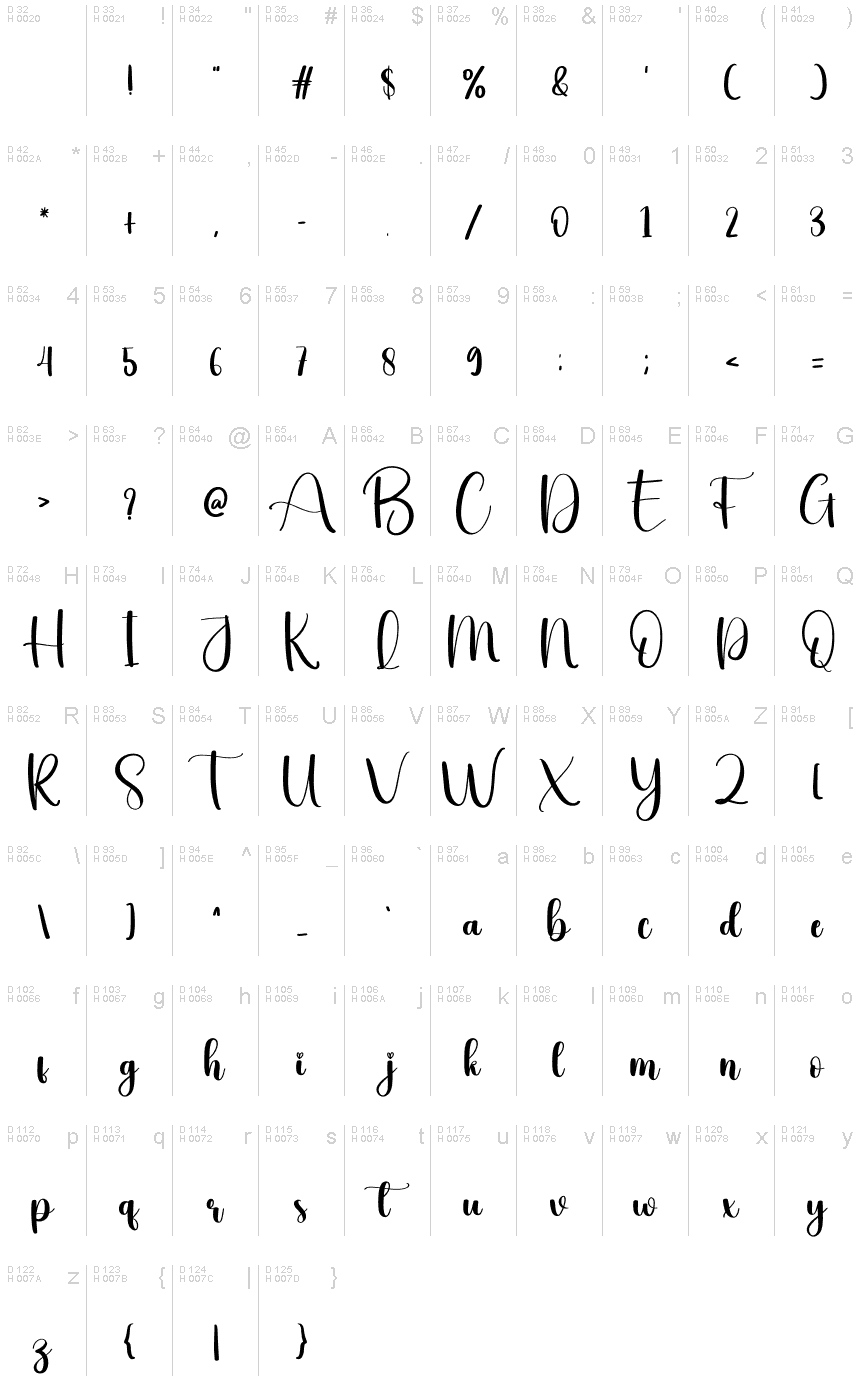
Lips
Lips, crafted by the creative mind at Scratchones, is a semi-light calligraphy font that exudes charm and elegance. Its flowing lines and hand-drawn aesthetic inject a personal touch into every character, making it an ideal choice for invitations, branding, and editorial design where a touch of sophistication is desired. The subtle weight of Lips strikes a perfect balance between delicate grace and readable solidity, offering designers the versatility to employ it in both digital landscapes and print materials.
With its captivating calligraphic strokes that hint at traditional penmanship while maintaining modern flair, Lips promises to add a distinctive allure to your projects. Whether you're looking to elevate your graphic designs or give your social media posts an artistic edge, this font stands ready to infuse your work with its unique blend of contemporary chic and timeless beauty.